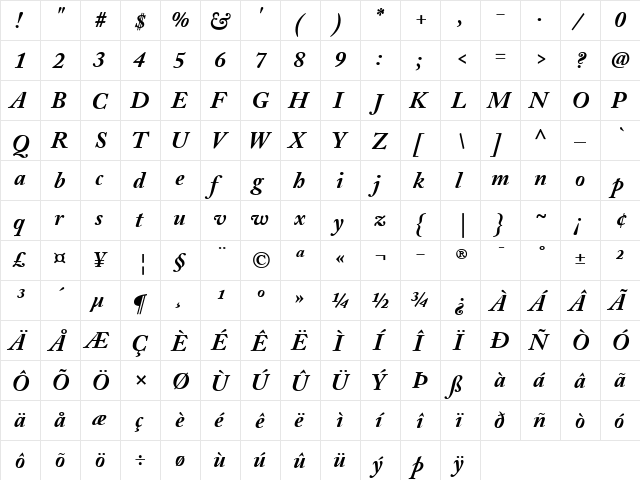
ACaslon Bold Italic Font Preview
ACaslon Bold Italic
ACaslon Bold Italic Font Details
Design Context for ACaslon Bold Typeface
ACaslon Bold is a composed and adaptable typeface that performs quietly and consistently across a wide range of design contexts. The dynamic lean of this cut emphasises speed and emphasis in any layout. Its bold stroke weight gives it real presence on the page.
Pro Tip: Use ACaslon Bold for emphasis, pull quotes, and subheadings where its slanted energy can add rhythm to the layout.